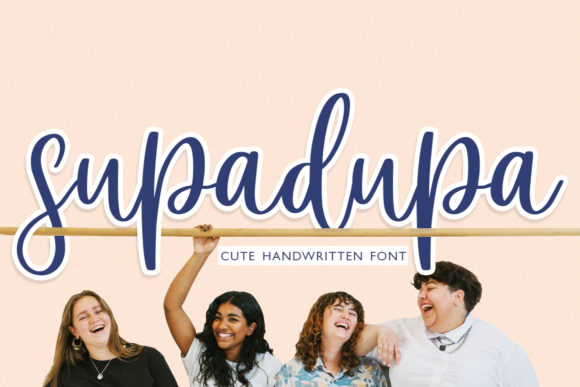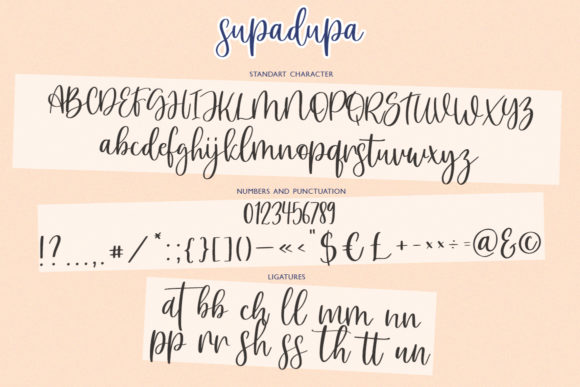
About Supadupa Font
Supadupa is a flowing handwritten font, described by a cute touch, perfect for your favorite projects. Fall in love with its incredibly distinct and timeless style and use it to create lovely designs!